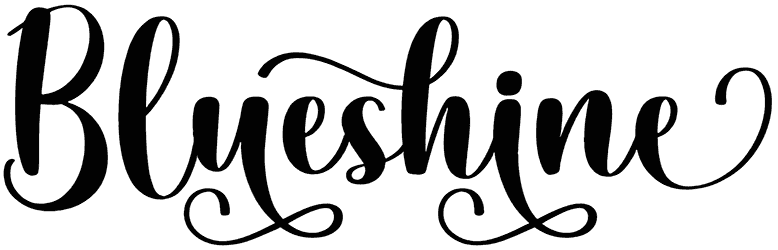
Blueshine Font
If only you knew about all the positive energy that Blueshine can bring to your typography, you wouldn’t stop using it in your various projects. As a whimsical font, it has a way of making everything sound so sweet and enchanting.
And the cherry on top? Those swirly characters of Blueshine, adorned with swashes and arranged cursively, will make it a great calligraphy font for your holiday postcards, Valentine’s Day flyers, and many more festive designs, especially with flowers around.